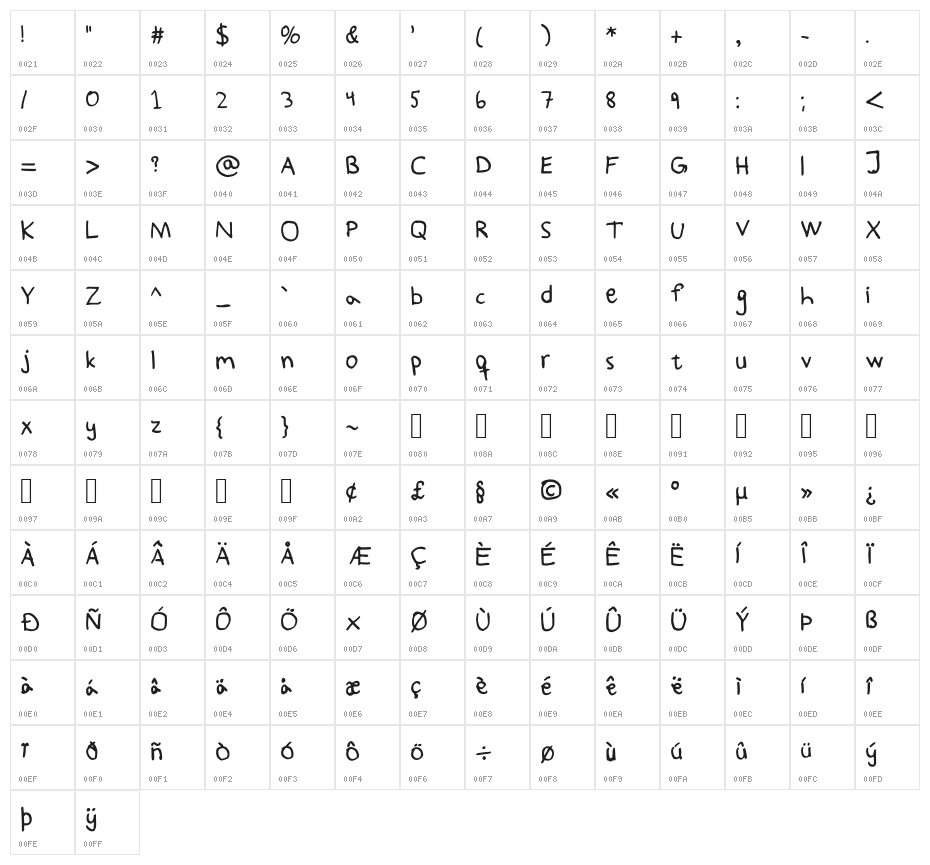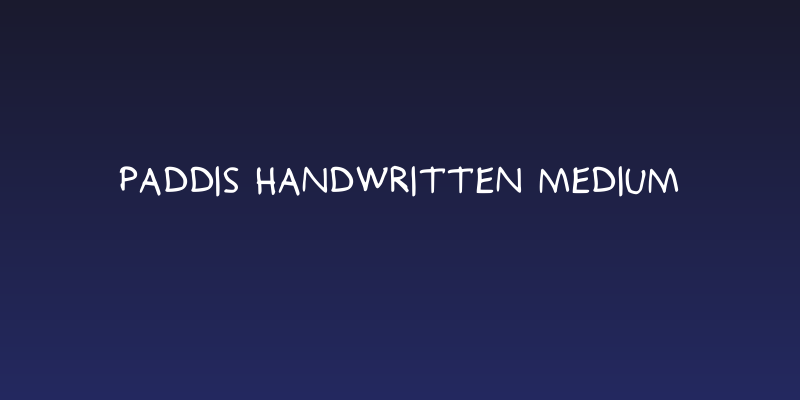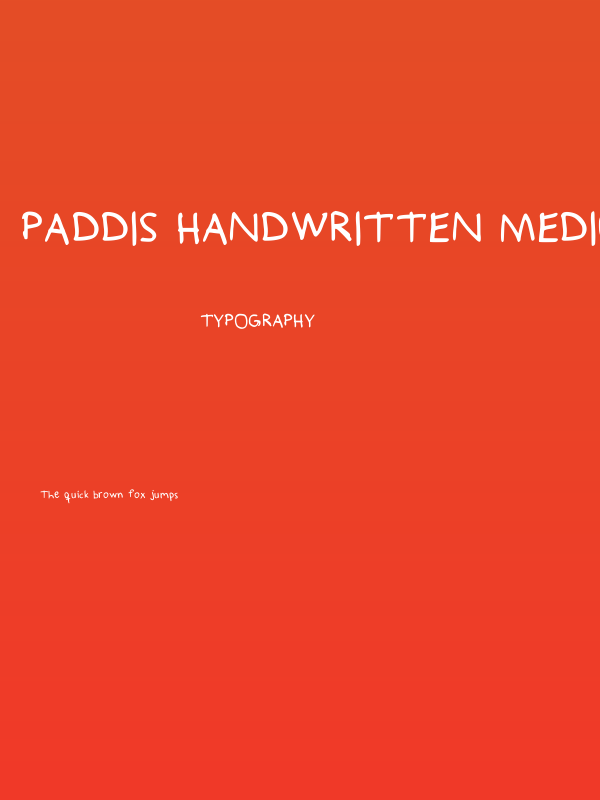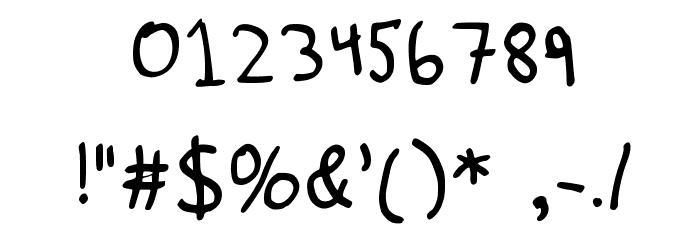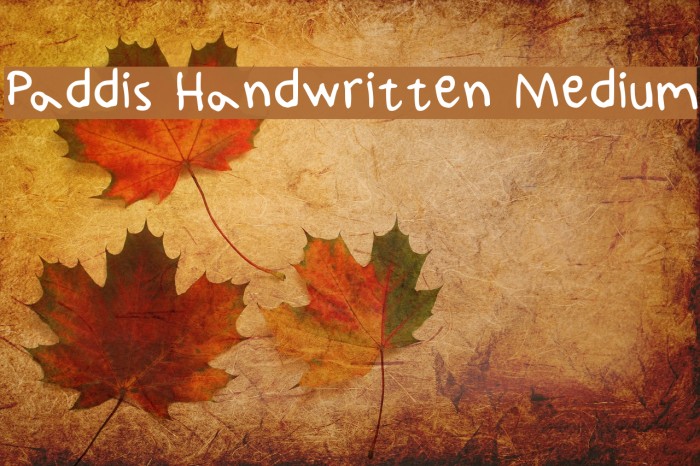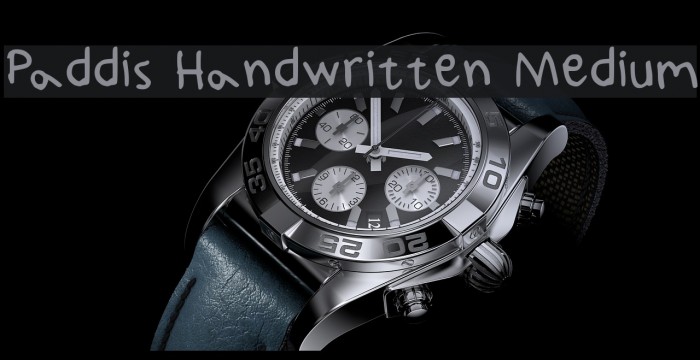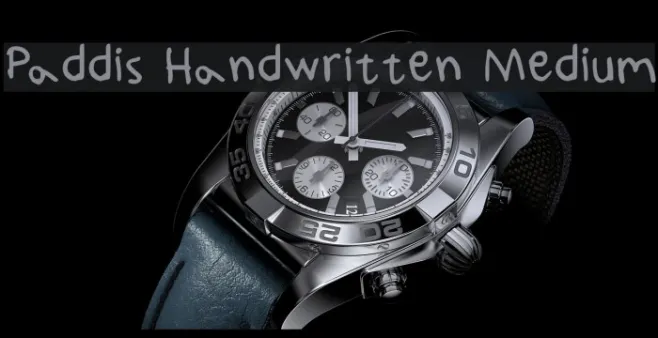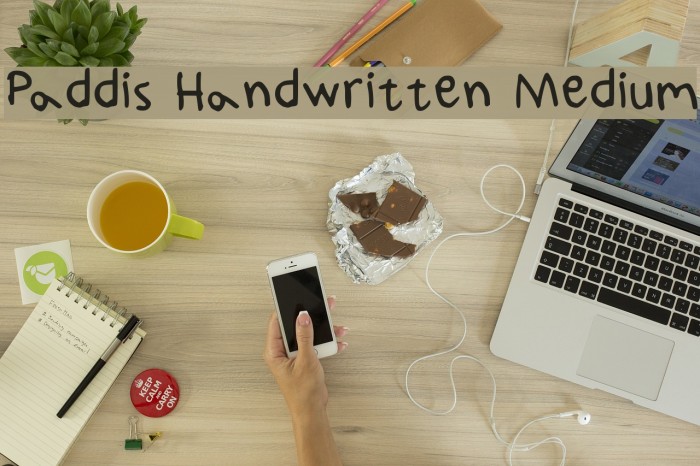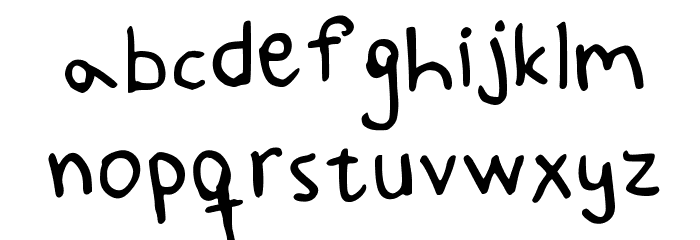
Paddis Handwritten Medium Font
Paddis Handwritten Medium Description
This font features a playful and casual handwritten style, characterized by its irregular and organic strokes. The letters have a natural flow, with slight variations in size and shape that give it a personal and informal feel. The uppercase and lowercase letters maintain a consistent style, with rounded edges and a slightly uneven baseline, enhancing its handwritten appearance. The numbers and special characters follow the same aesthetic, making it versatile for various uses. The overall look is approachable and friendly, suitable for projects that require a personal touch.